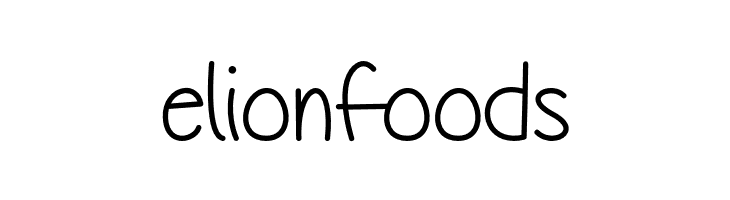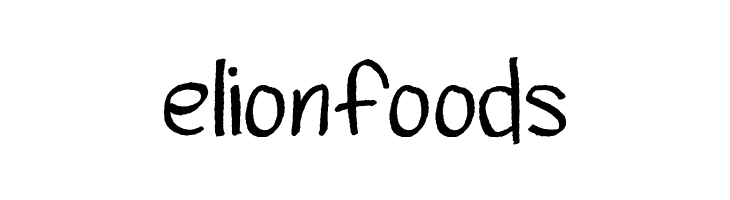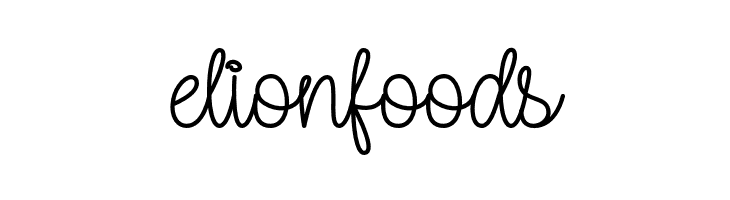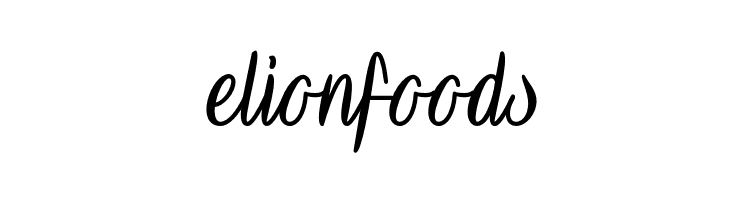
A bold, playful font with thick outlines and a cartoonish style.
A playful, handwritten font with rounded edges and a casual style.
A casual, handwritten font with a playful and informal style.
A casual, handwritten font with bold strokes and a playful style.
A playful, narrow font with elongated characters and a quirky style.
A textured, script-style font with a mysterious, handwritten appearance.
A whimsical, cursive font with playful loops and magical elements.
A whimsical, handwritten script font with playful, flowing characters.
An elegant calligraphic font with ornate uppercase and smooth lowercase letters.